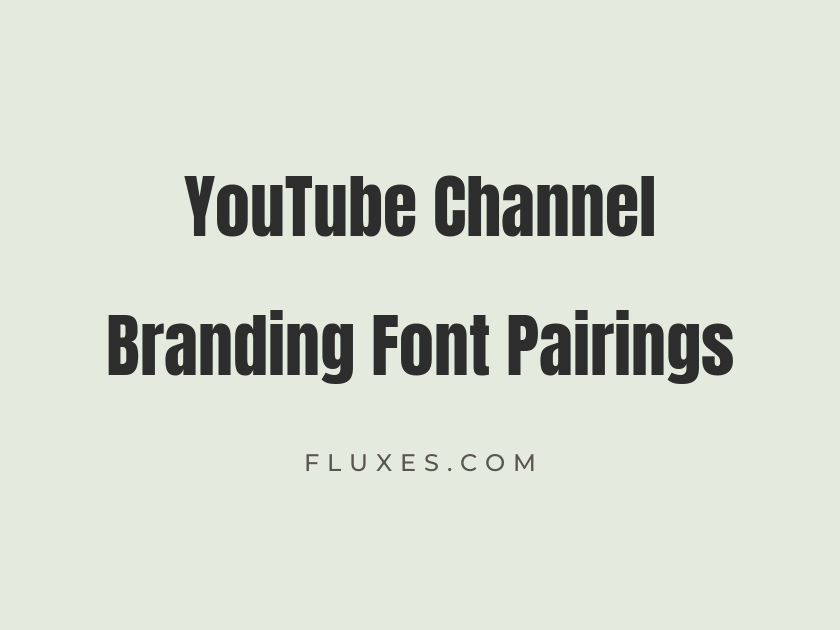
38 Best Font Pairings for YouTube Channel Branding
YouTube branding lives at the intersection of thumbnail-scale impact and on-screen readability, which means every pairing needs a heading font bold enough to survive a 120-pixel preview and a body font clean enough for lower thirds, video descriptions, and channel art. The right combination signals genre instantly, whether that is gaming, beauty, finance, or comedy, while staying legible across banners, end cards, and merch. These font pairings for YouTube channel branding cover a wide range of niches so you can match tone to typography with confidence.
1. Anton + Roboto
Level Up Every Episode
Episode notes and timestamps stay easy to scan even on mobile.
Anton’s compressed, ultra-bold letterforms are built for gaming and reaction channels where thumbnail text needs to punch through a crowded feed. Roboto’s neutral, mechanical skeleton keeps captions and descriptions calm underneath all that shouting. Together they read as high-energy without tipping into chaos.
2. Bebas Neue + Open Sans
Weekly Fitness Challenge
Follow along with workout breakdowns and rest-day tips below.
Bebas Neue’s tall, condensed caps are a staple of fitness and sports channels because they suggest motion and discipline even standing still. Open Sans balances that intensity with warm, rounded terminals that make workout instructions feel approachable rather than intimidating.
3. Archivo Black + Inter
Tech Review Breakdown
Specs, benchmarks, and pricing details are covered in the timestamps.
Archivo Black and Inter share the same grotesque-sans DNA, so headlines and body copy feel like one coherent system rather than two typefaces stitched together. This shared skeleton is exactly what tech review and gadget-unboxing channels want: authoritative titles paired with dense, scannable specs.
4. Oswald + PT Sans
True Crime Case Files
Sources and timeline details are listed in the video description.
Oswald’s narrow, newspaper-headline proportions give true crime and documentary channels a serious, investigative tone. PT Sans, with its slightly humanist warmth, keeps the supporting text from feeling cold or clinical.
5. Poppins + Nunito
Morning Routine Vlog
Here is what a slow, intentional morning looks like for me.
Poppins is a geometric sans with a friendly circular O that reads as modern and upbeat, a favorite for lifestyle and vlog channels. Nunito’s soft, rounded terminals echo that same friendliness at body size, so the pairing feels cohesive rather than mismatched.
6. Bungee + Karla
Street Style Unboxing
Every item in this haul is linked in the description below.
Bungee’s blocky, sign-painted letterforms bring street and sneaker culture energy to a thumbnail. Karla’s understated, slightly quirky sans grounds that boldness so captions still feel legible and current.
7. Righteous + Fira Sans
Retro Gaming Marathon
Nostalgic playthroughs streamed every Friday night.
Fira Sans
Righteous carries an art-deco, arcade-adjacent swagger that suits retro gaming and nostalgia channels. Fira Sans keeps the supporting copy technically precise, a nice counterweight for a heading font with so much personality.
8. Fjalla One + Open Sans
Daily News Roundup
Top stories explained clearly in under ten minutes.
Fjalla One’s narrow, high-contrast strokes give commentary and news channels a credible, broadcast-style masthead look. Open Sans is designed for legibility across interfaces and screens, which makes it dependable for dense on-screen text and captions.
9. Alfa Slab One + Mulish
BBQ Cookout Secrets
Recipe card and ingredient list are pinned in the comments.
Alfa Slab One’s heavy slab serifs feel hearty and hand-lettered, right at home on food and BBQ channels. Mulish stays light and legible so recipe steps do not compete visually with the heading.
10. Titan One + Nunito Sans
Family Prank Wars
Watch the whole family try not to laugh first.
Titan One’s inflated, cartoonish weight is tailor-made for comedy and family-friendly prank content aimed at a young audience. Nunito Sans keeps captions readable without introducing a second loud personality.
11. Luckiest Guy + Quicksand
Storytime with Stickers
A gentle new story every week for curious little minds.
Luckiest Guy’s bouncy, marker-drawn feel is a natural for kids and animation channels. Quicksand’s rounded, low-contrast letters continue that playful mood at readable sizes, which matters when the audience is still learning to read.
12. Fredoka + Hind
Craft Time Tutorial
Materials list and step-by-step instructions are linked below.
Pick the heading font first based on genre, then choose a body font for legibility at small caption sizes rather than personality.
Limit display fonts like scripts, slab caps, or neon styles to short headlines; never set full sentences in them.
Test every pairing at actual thumbnail scale, since many bold display fonts that look great full-size lose clarity below 100 pixels.
Keep the same two fonts across thumbnails, banner art, and lower thirds so the channel feels like one consistent brand rather than a new look every upload.